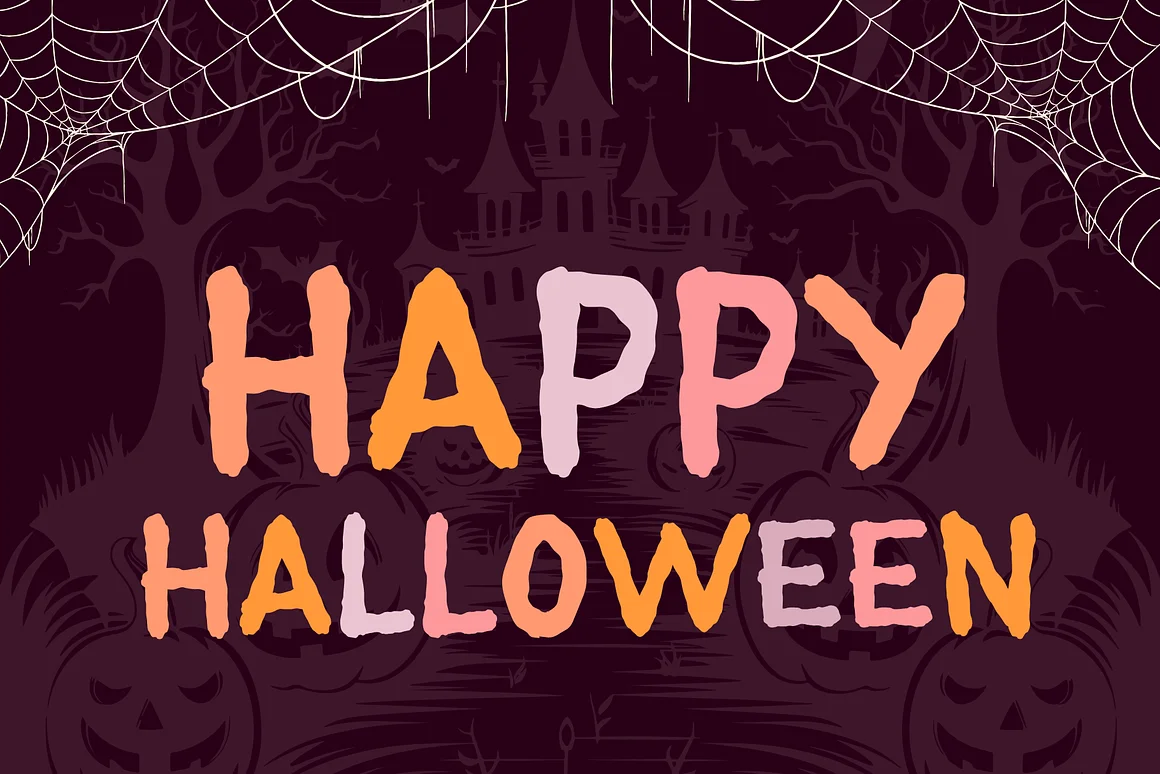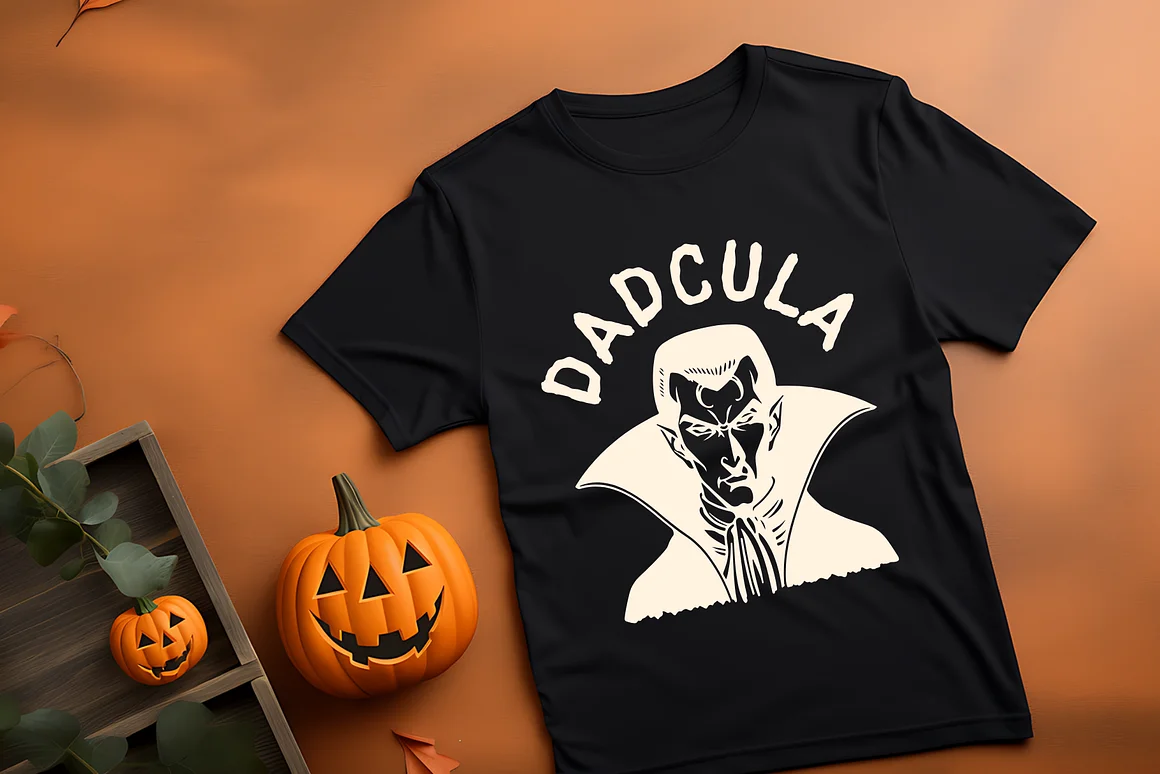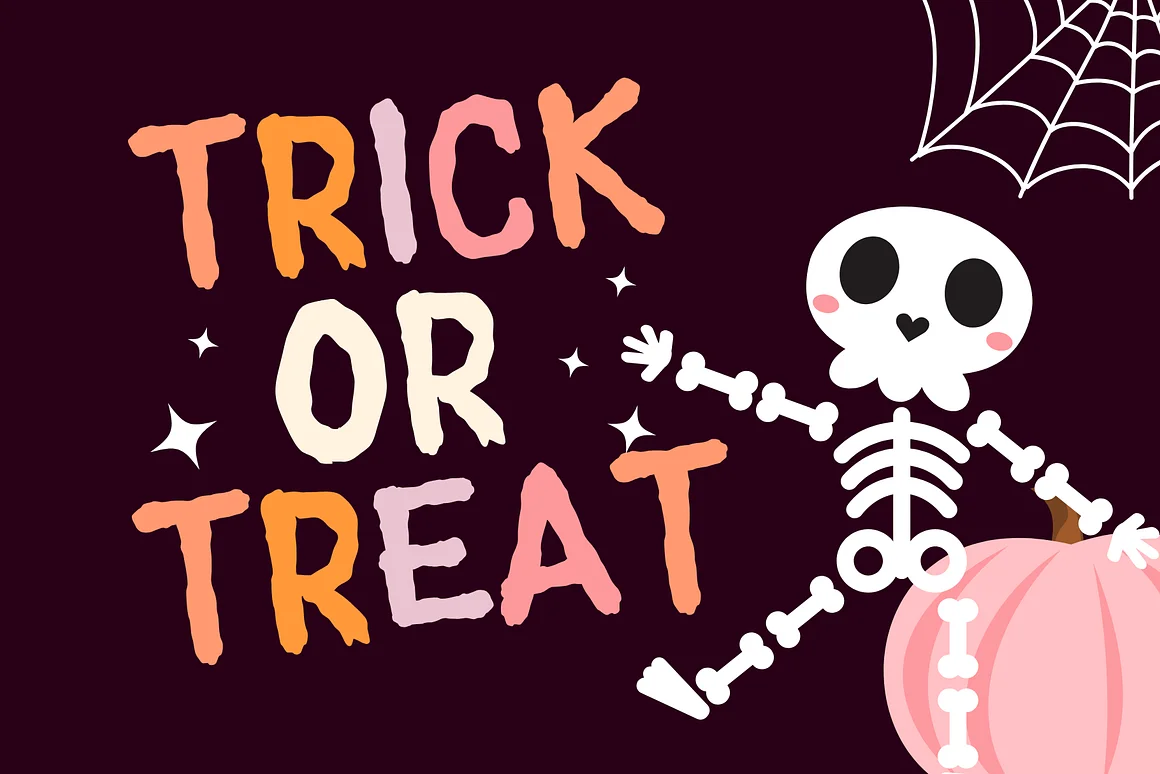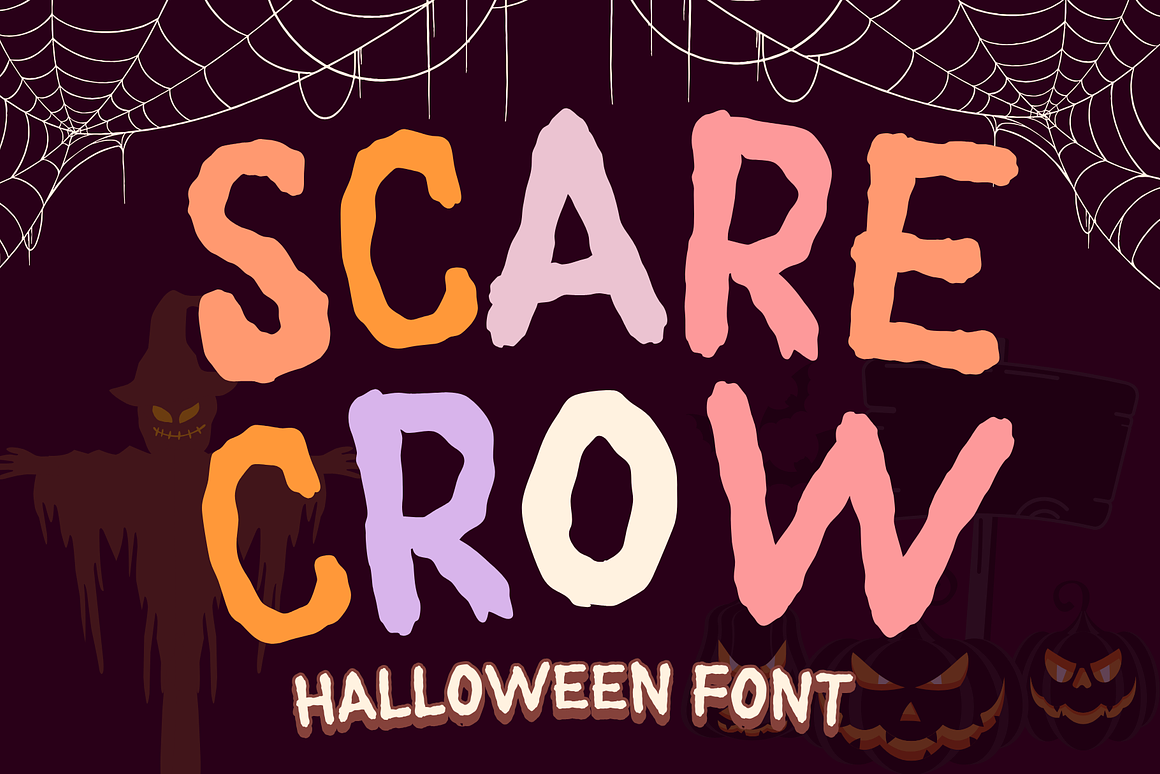
Scarecrow is a Halloween Font
This rustic font is perfect for harvest Halloween festivals, farm-themed spooky events, rural Halloween decorations, autumn horror celebrations, cornfield Halloween parties, countryside spooky marketing, agricultural horror branding, harvest moon events, scarecrow contests, and rustically frightening Halloween messaging materials.
Scarecrow is a Halloween Font is exciting because it captures the eerie charm and rustic terror of countryside Halloween through its organically twisted letterforms that seem to be stitched together from burlap and straw like the haunting guardians of autumn fields. The font features weathered, patched characters with agricultural proportions and farm-inspired details that evoke the unsettling presence of scarecrows standing sentinel in moonlit cornfields, incorporating straw-like textures and patch flourishes that create typography as unnerving and authentic as the feeling of being watched by lifeless button eyes in a deserted harvest field. Each letter showcases the primitive menace and rural mystique that makes scarecrows such enduring symbols of countryside horror, with raggedy curves and stitched accents that transform ordinary text into expressions of agricultural terror that capture the primal fear of things that watch from the darkness of rural landscapes where civilization fades into wild shadows.
The Scarecrow is a Halloween Font family includes harvest-inspired variations: Regular, Bold, Light, Patched, and Weathered versions. The collection features special farm elements including straw accents, patch details, button flourishes, and burlap ornaments. Additional components include harvest borders, farm frames, rural decorations, and countryside ornamental designs that enhance the font's scarecrow Halloween appeal and create cohesive agricultural horror themes.
Rural event planners and harvest horror enthusiasts will find Scarecrow is a Halloween Font to be an invaluable resource for creating authentically rustic Halloween communications that celebrate the unique terror and countryside charm of agricultural Halloween traditions. This rustically crafted font transforms ordinary Halloween messaging into farm-inspired expressions that resonate with audiences who appreciate the primitive fear and rural mystery that make scarecrow themes such compelling elements of harvest season horror and countryside Halloween celebrations.
The typeface includes comprehensive character support with agricultural styling that maintains excellent readability while conveying the rustic terror and countryside atmosphere of scarecrow Halloween celebrations. The font's weathered design ensures authentically rural results across both farm festival applications and agricultural horror productions.
Perfect for harvest festivals, rural Halloween events, countryside horror celebrations, and agriculturally themed seasonal marketing, this font delivers rustically terrifying visual impact that communicates rural fear, primitive terror, and the unsettling countryside atmosphere that makes scarecrows such enduringly frightening guardians of harvest season horror and agricultural Halloween tradition.